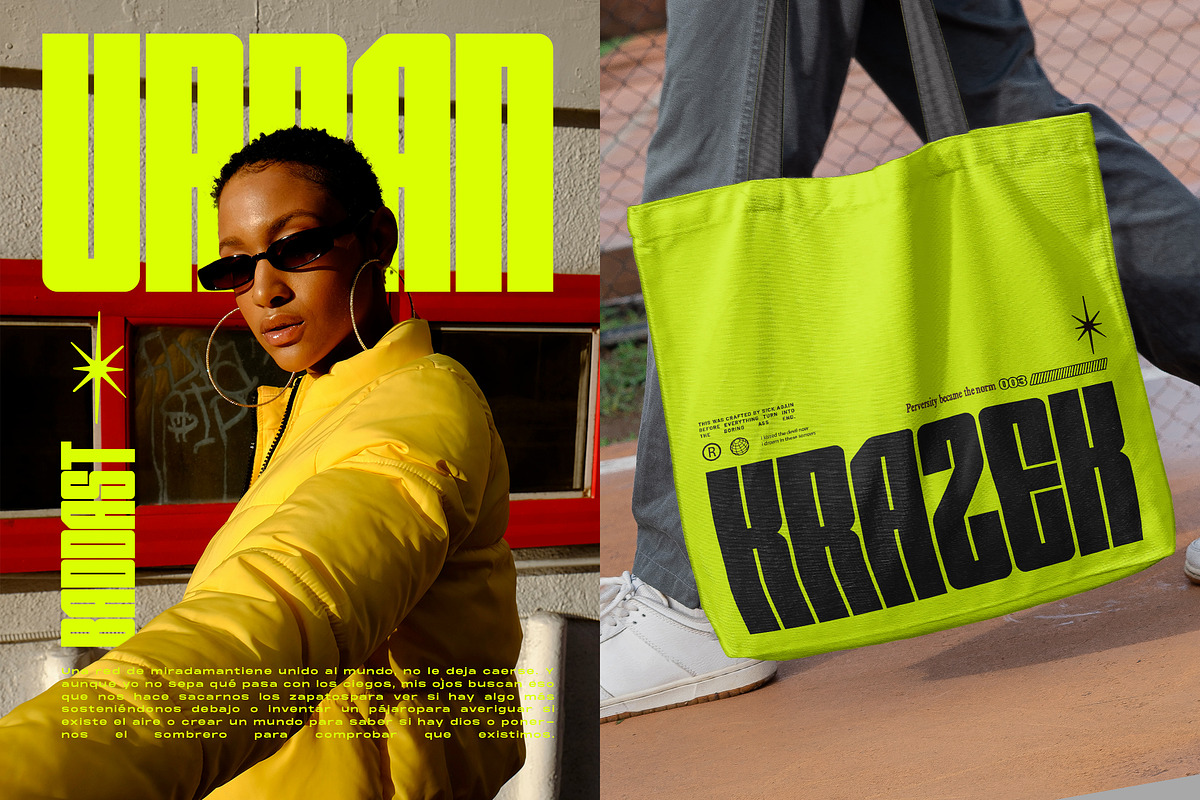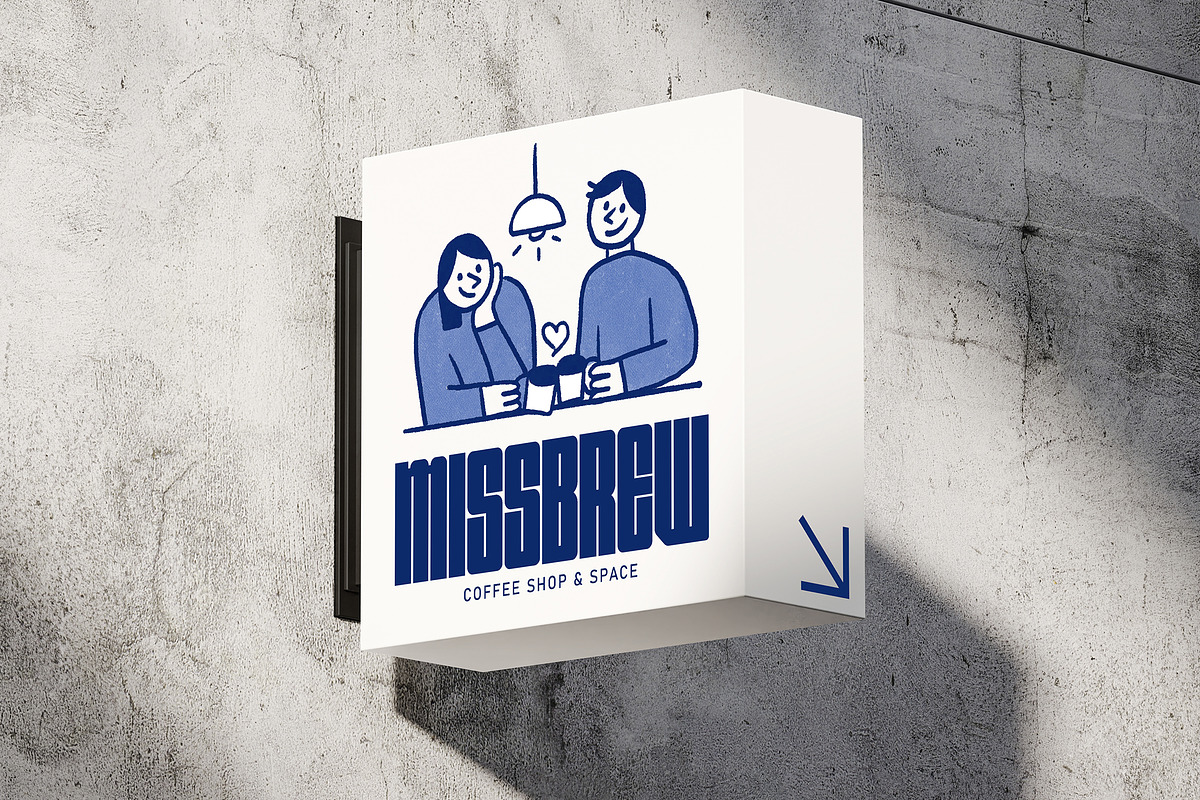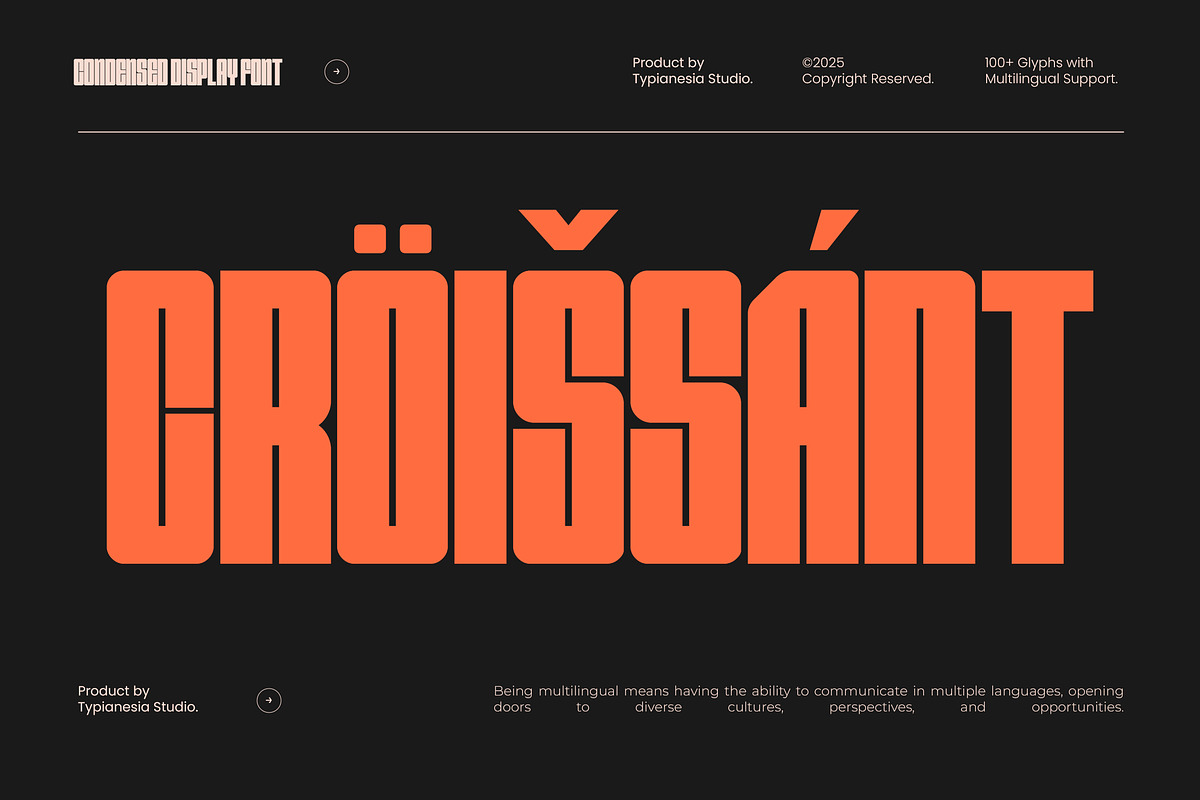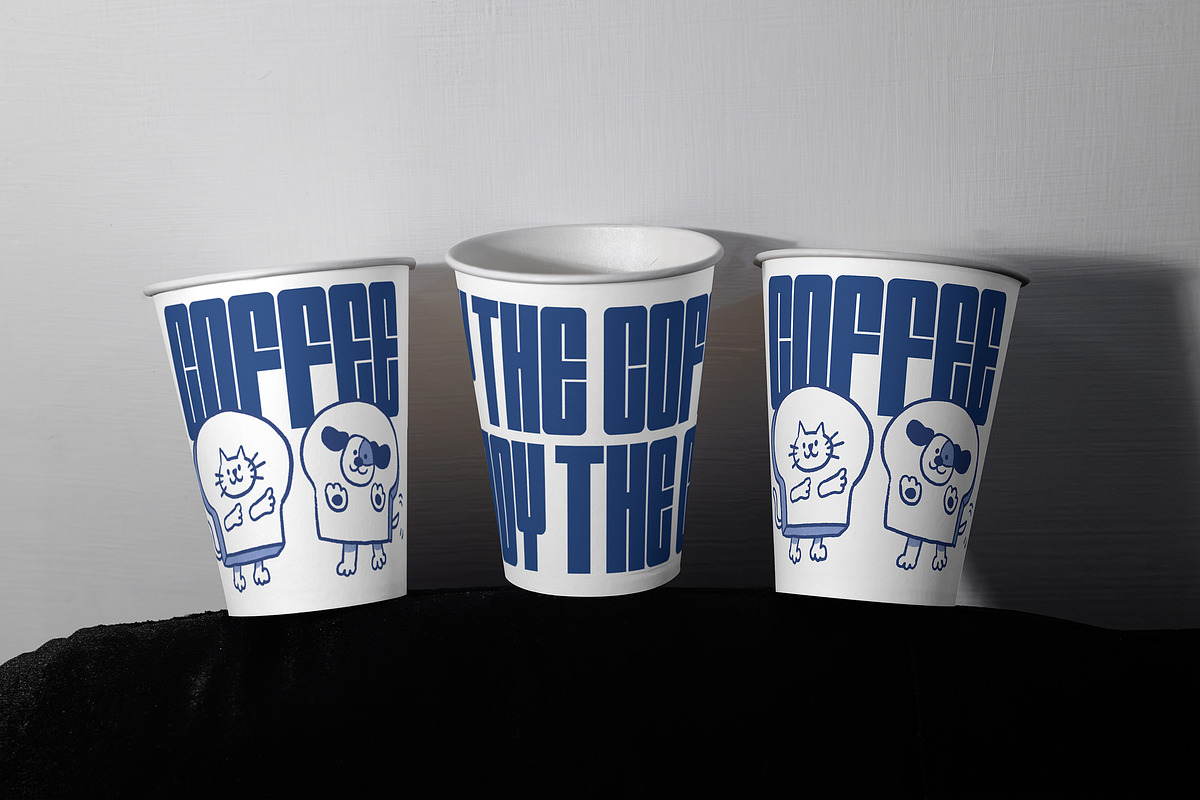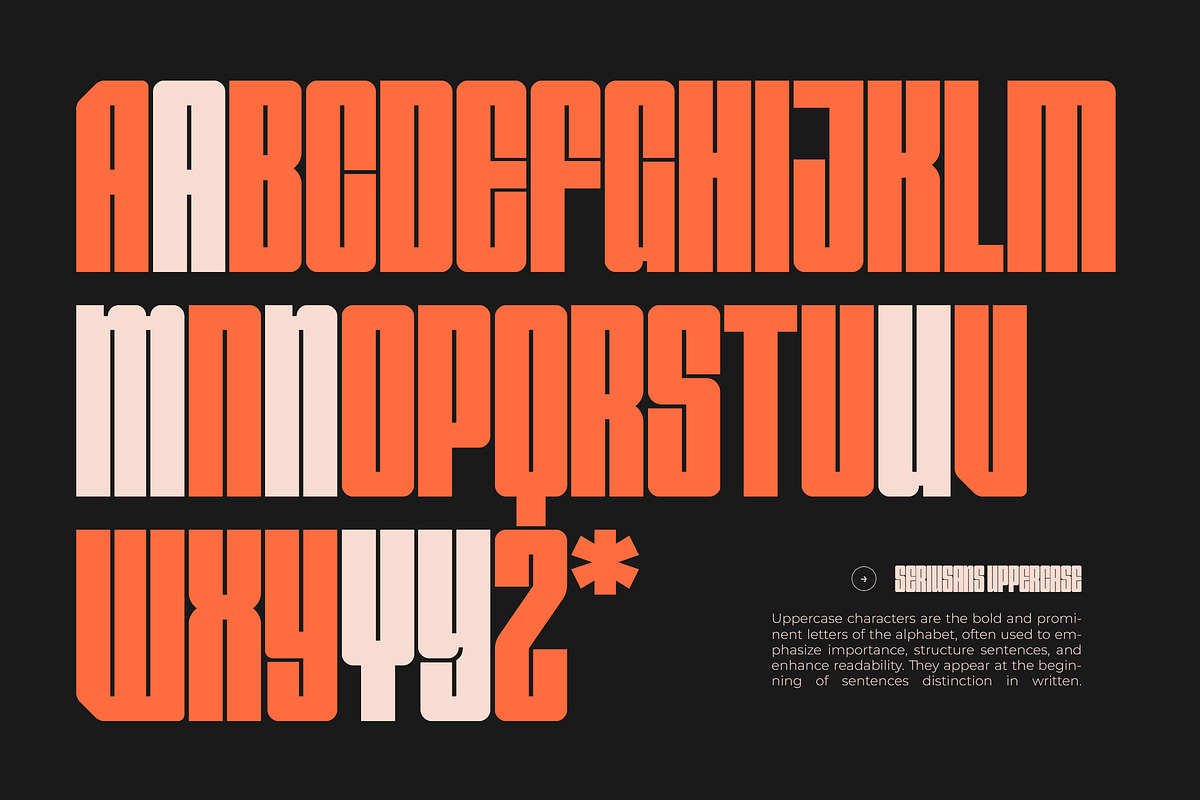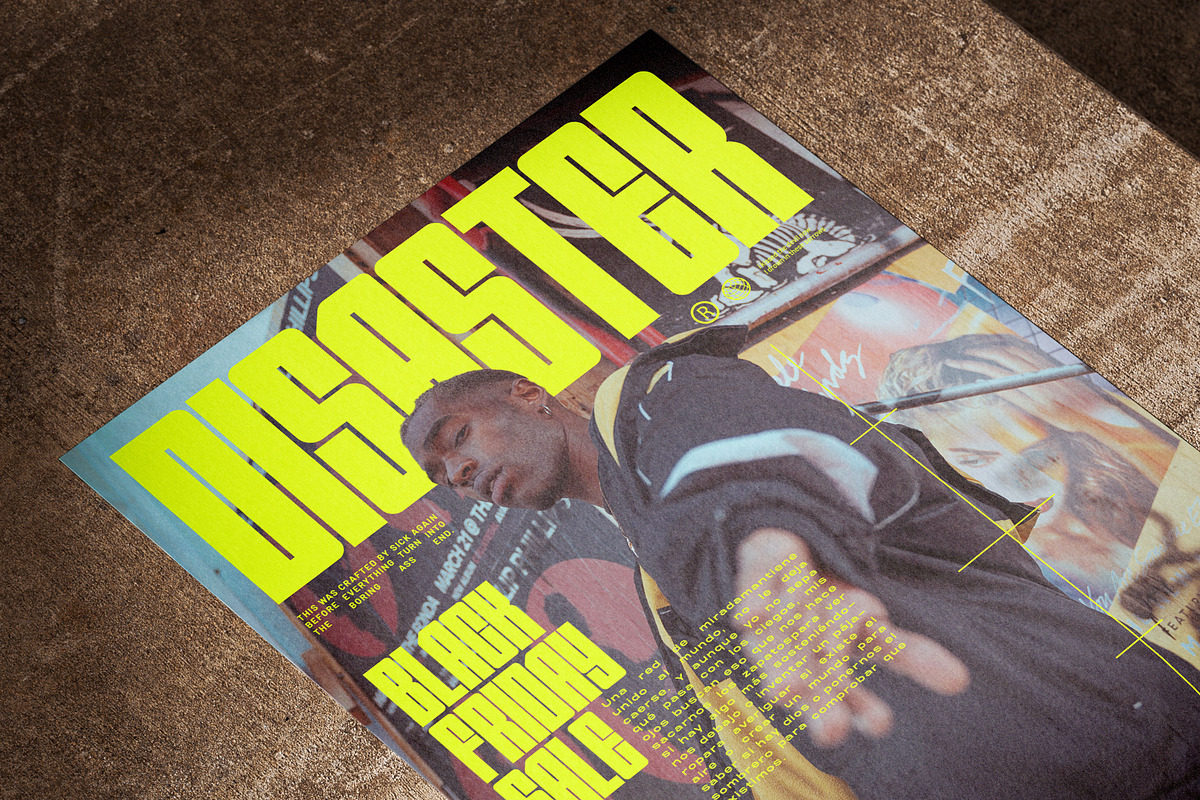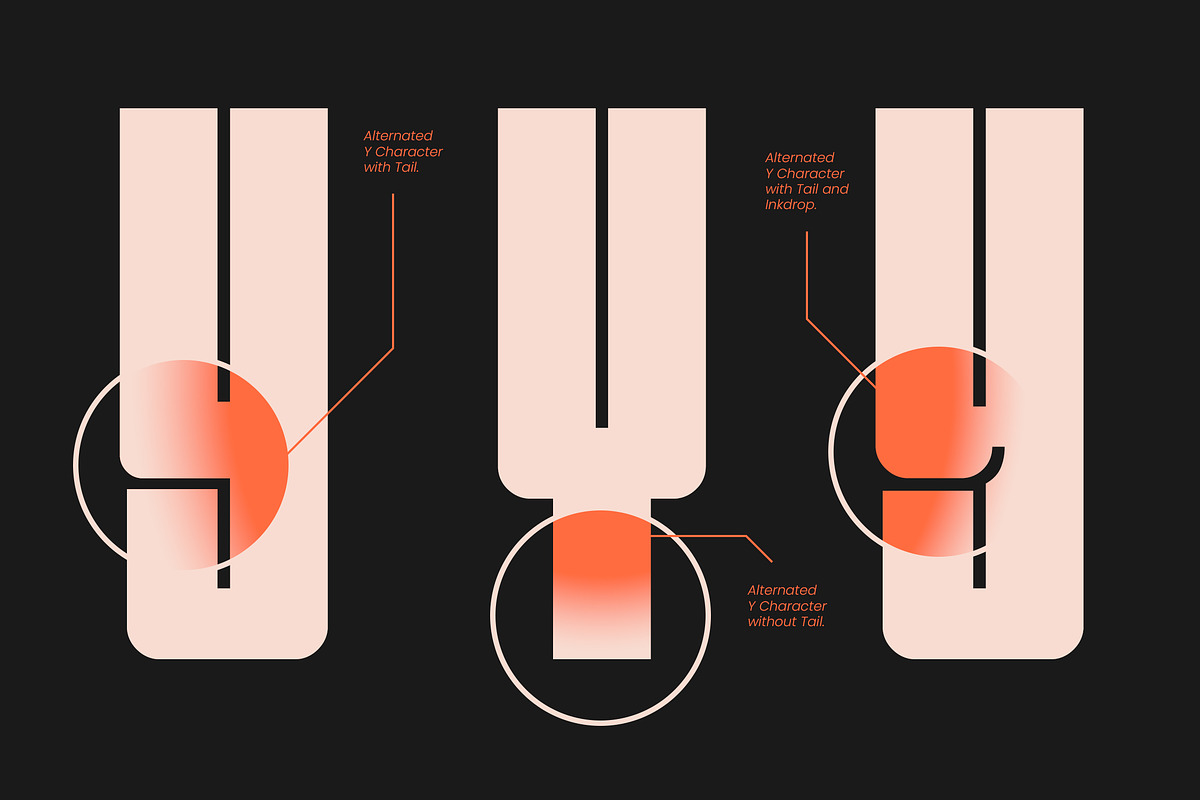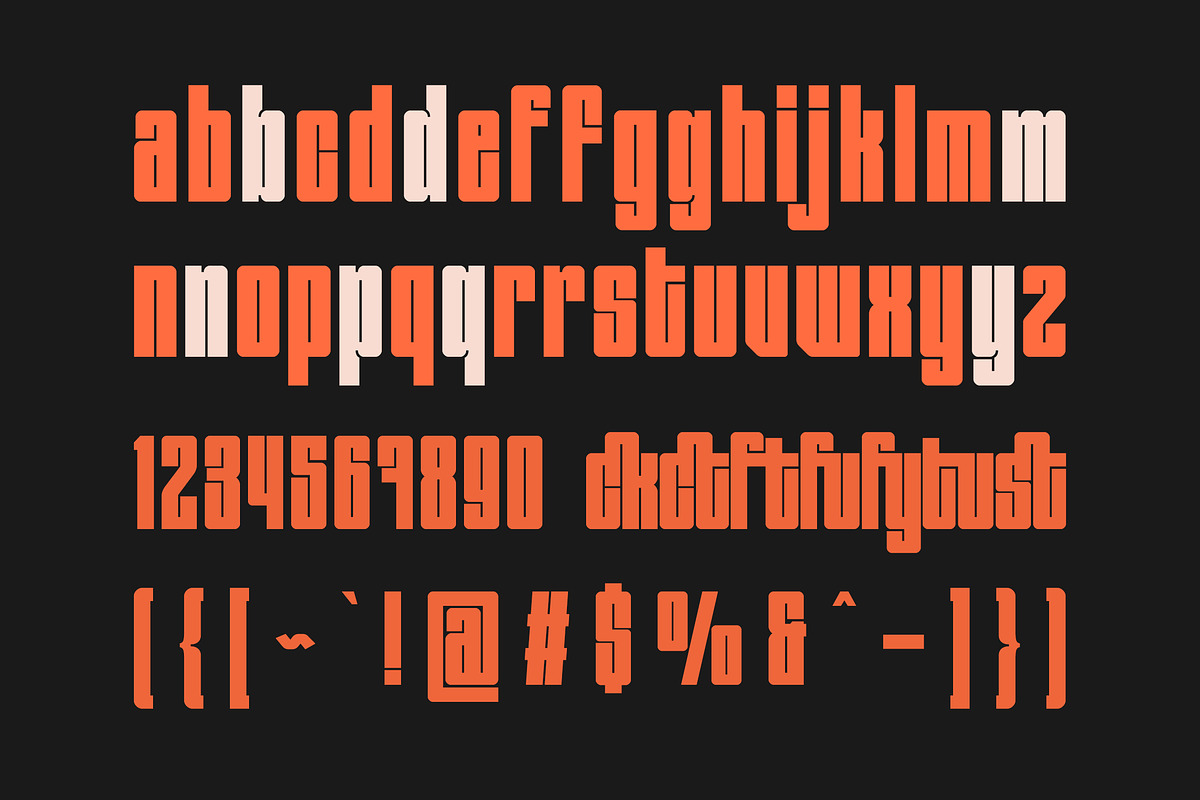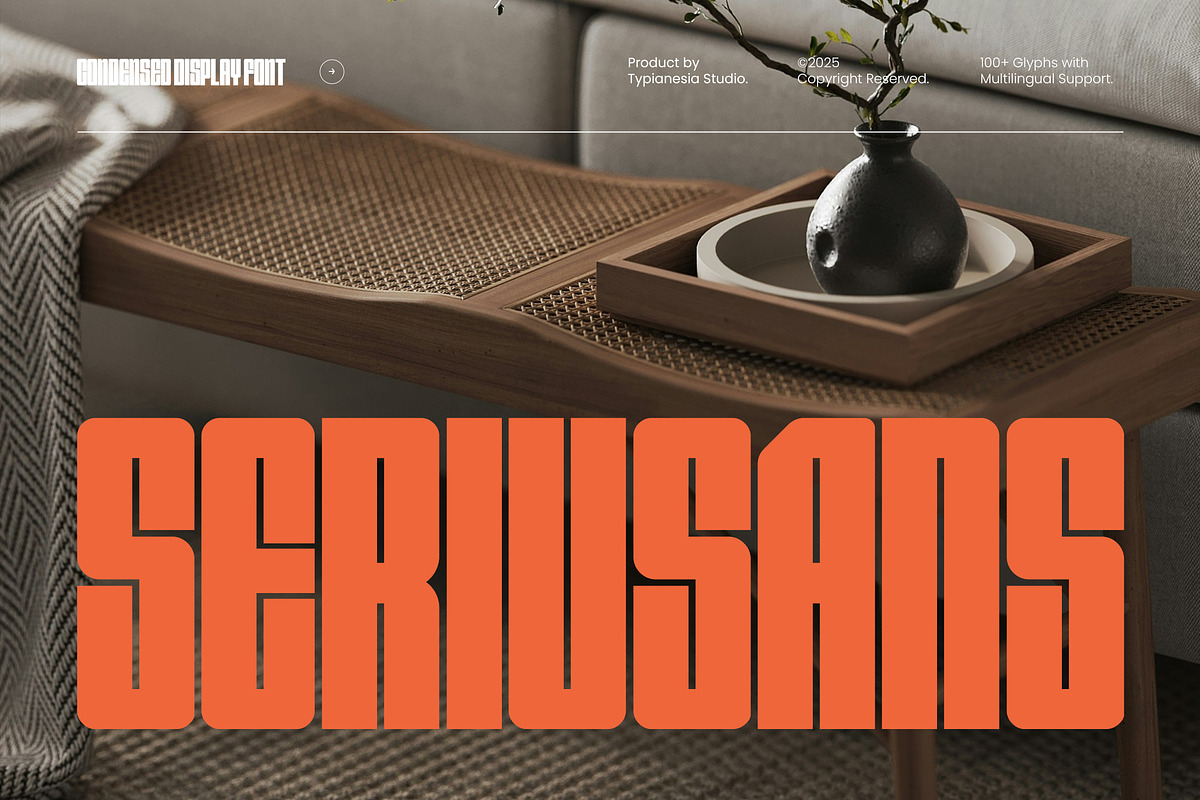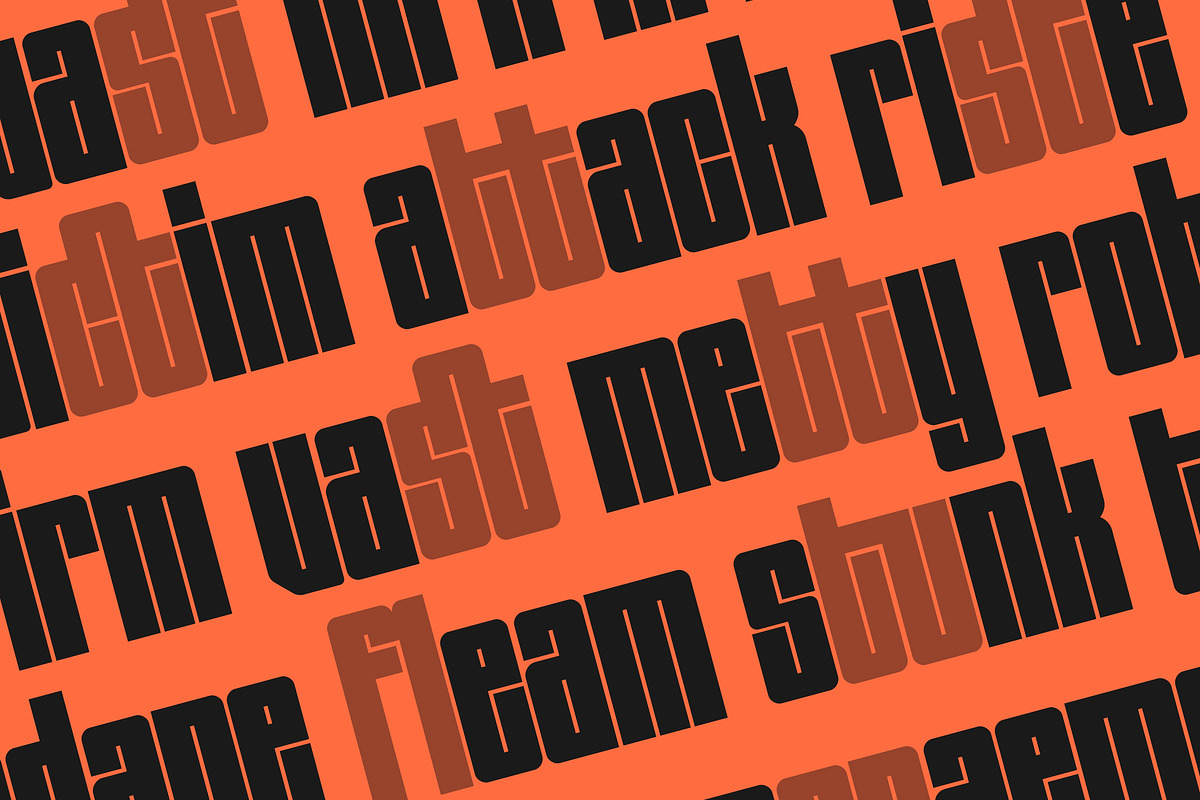
Seriusans - Condensed Sans Display
Seriusans - Condensed Sans Display Font - Modern Bold Digital Sport Typeface
Seriusans is a Condensed Sans Display Font that blends modern simplicity with bold. Its narrow yet striking letterforms create a powerful presence, making it an excellent choice for impactful design, such as posters, magazine headlines, branding, packaging, web design, sports graphics, editorial layouts, advertising campaigns, corporate presentations, and any project that requires a touch of clean and structured appearance that can enhance readability while maintaining a strong visual identity. Comes with uppercase, lowercase, punctuation, numerals, ligatures, alternates, and multilingual support, ensuring versatility across various design needs. Seriusans is designed for graphic designers, branding experts, content creators, and businesses looking for a bold and professional typeface. Its condensed structure makes it ideal for maximizing space without sacrificing clarity or style.